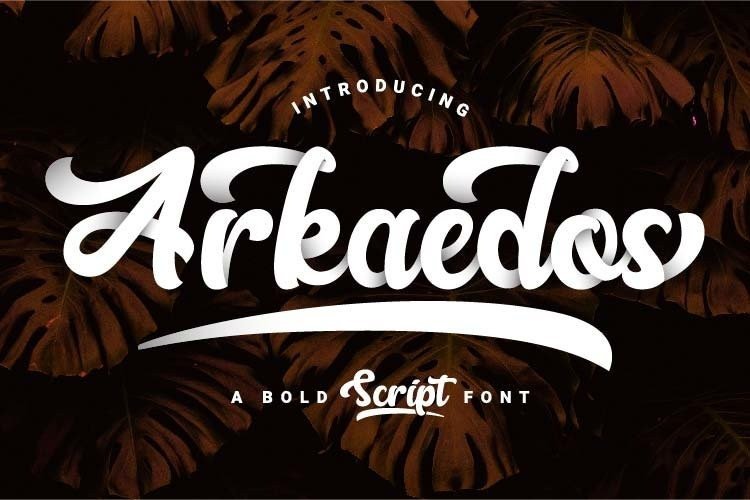
Arkaedos Font
Arkaedos Script Font is font script that has a thick, bold and strong style that has an elegant, classic and unique impression. It’s a script font created by prioritype with a bold and cool style. Can be applied in various media such as vintage logos / logos, clothing, food packaging, brand names, posters, broadcasts or youtube thumbnails, even album covers!